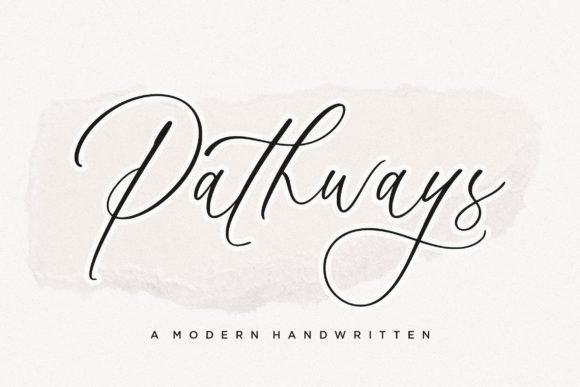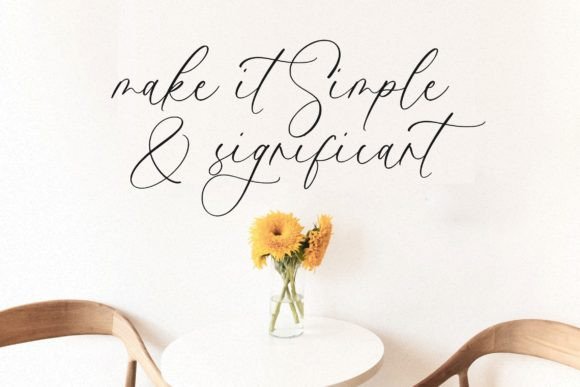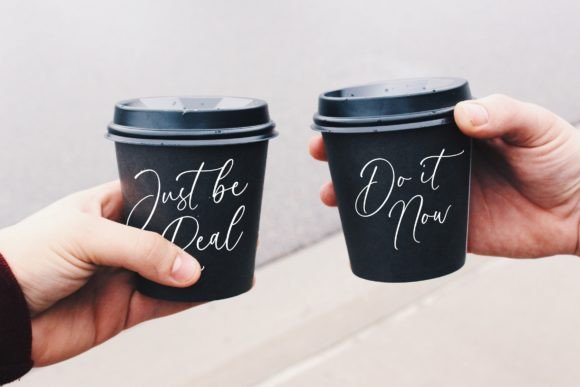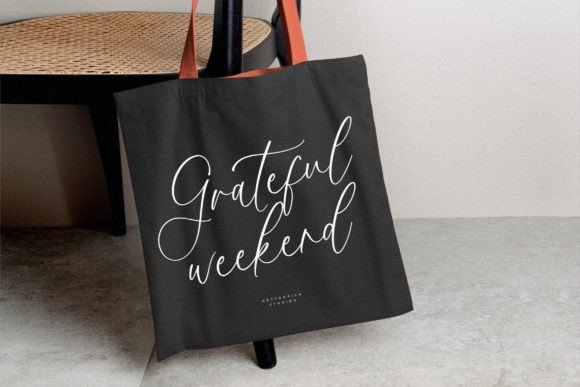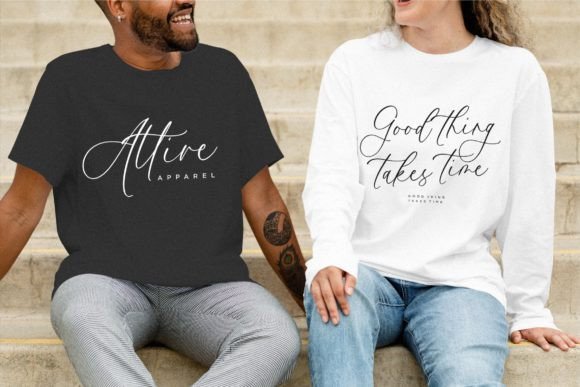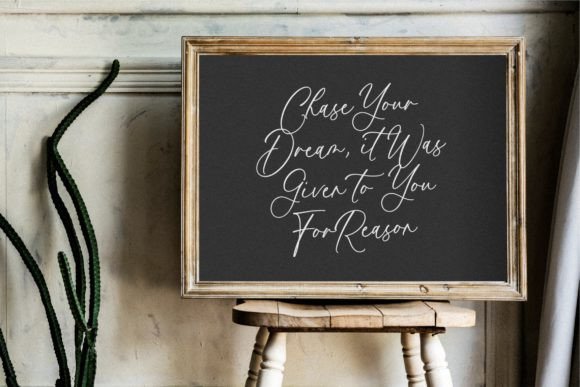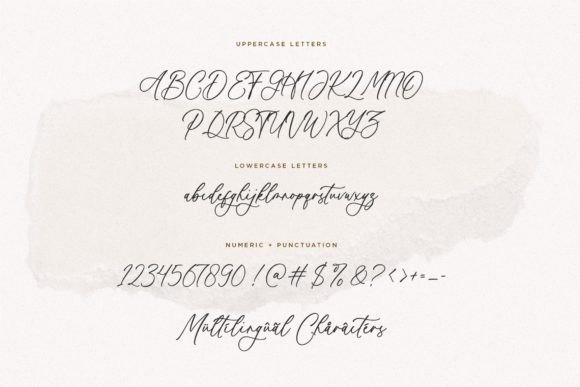
Pathways Font
The Pathways Font Download is a dazzling handwritten script designed with elegance, precision, and style. Its neatly crafted curves and fine detailing make it a versatile addition to any designer’s font library. Whether used for invitations, branding, or digital content, Pathways provides sophistication and charm that enhance every creative project.
A Dazzling Script with Elegant Detailing
Unlike many ordinary fonts, the Pathways script font combines decorative flourishes with practical readability. As a result, it looks both modern and timeless, making it ideal for creative projects where luxury and clarity are equally important.
Special occasions deserve meaningful typography. The Pathways Font is excellent for wedding invitations, birthday cards, thank you notes, and seasonal stationery. Moreover, its handwritten script ensures that each design feels personal and sophisticated.
Branding and Logo Design with Pathways Font
Typography is a core part of a brand’s personality. The Pathways handwritten font is perfect for boutique logos, product packaging, and promotional campaigns. In addition, its detailed strokes allow brands to appear elegant, creative, and professional.
Posters, Titles, and Editorial Designs
The Pathways Font Download adapts beautifully to posters, book covers, magazine titles, and advertising layouts. Therefore, it maintains balance across both large and small-scale projects while keeping its dazzling handwritten beauty.
In the digital landscape, fonts need to attract attention while staying functional. The Pathways typeface integrates seamlessly into Instagram posts, YouTube thumbnails, Pinterest graphics, and blogs. Its dazzling curves make online content feel polished and visually appealing.
Why Designers Choose Pathways Typeface
Designers love fonts that combine uniqueness with practicality. While some handwritten fonts can be overly decorative, the Pathways handwritten script keeps its style refined without losing legibility. This makes it a dependable tool for both professional and personal projects.
Add Dazzling Elegance to Your Projects Today